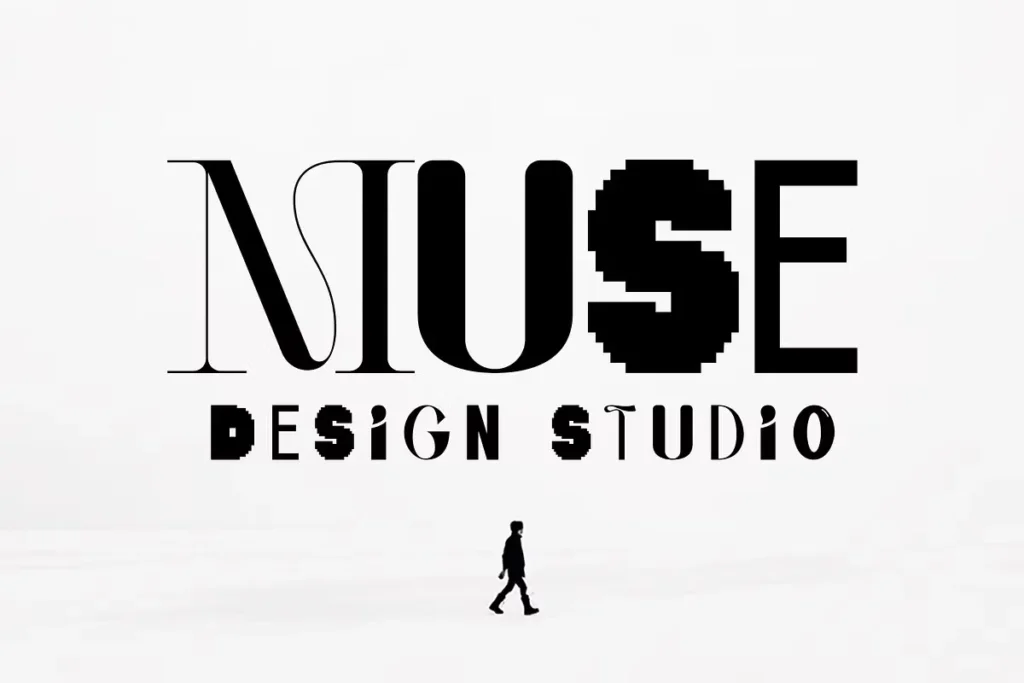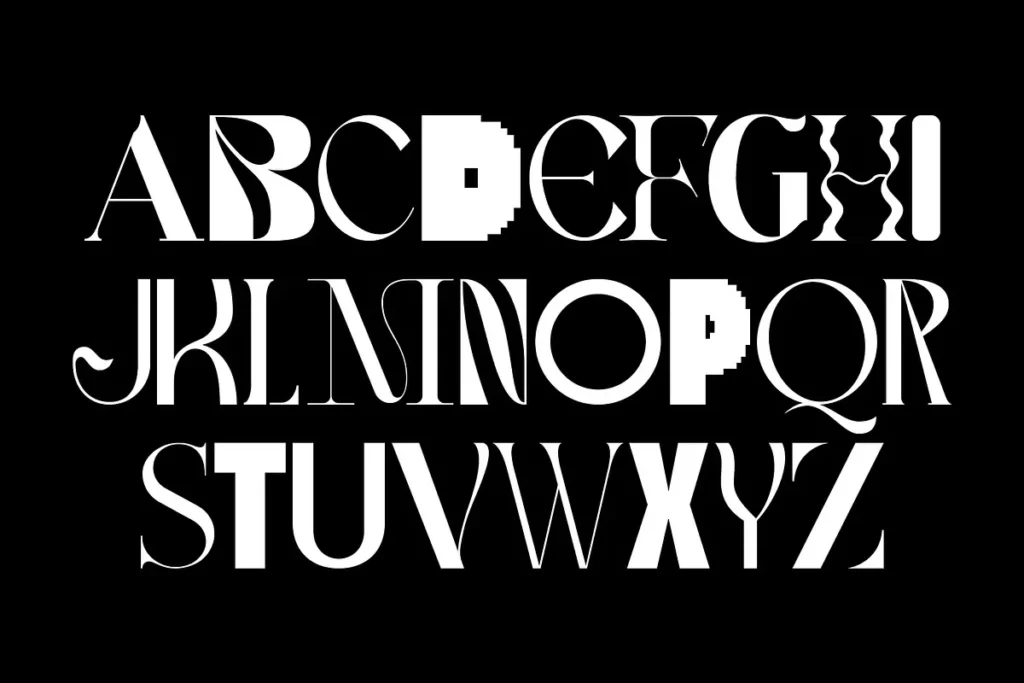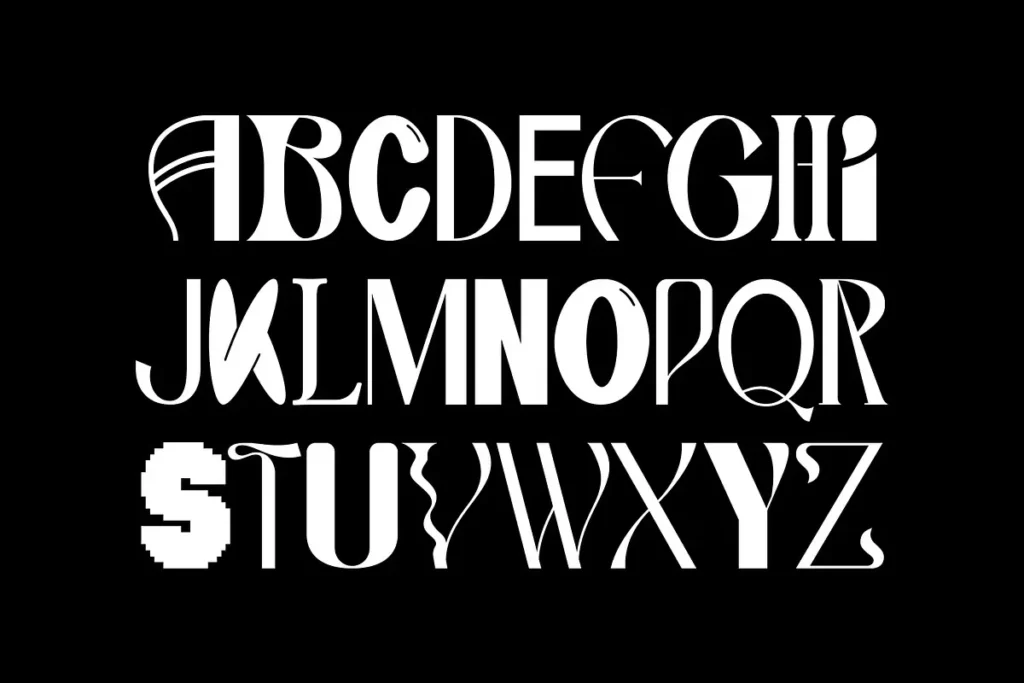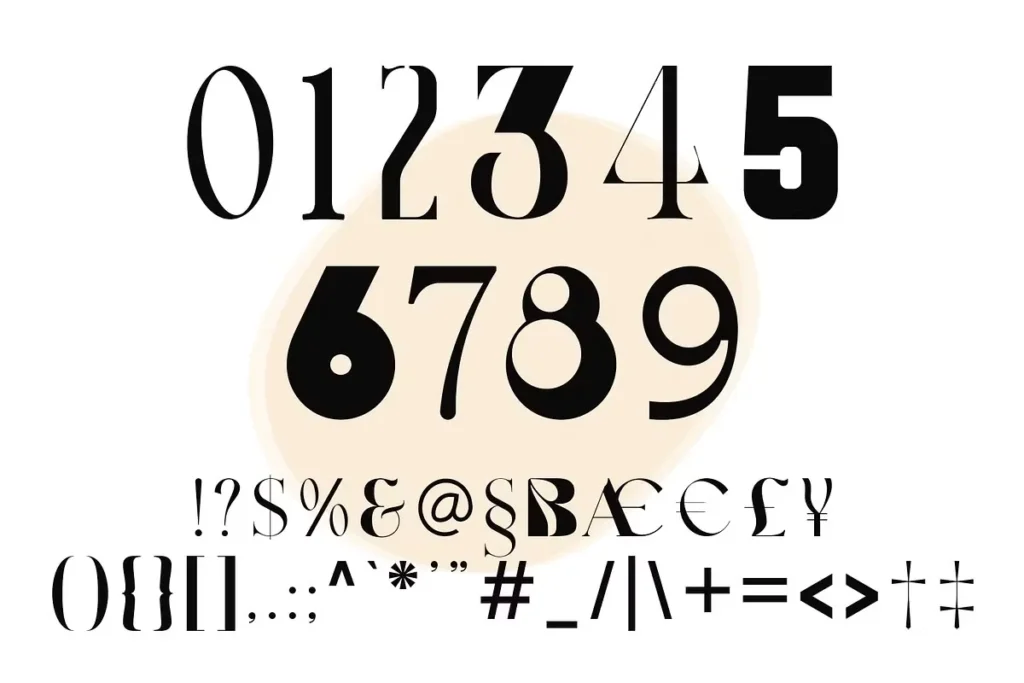
If you’re looking for a typeface that instantly grabs attention, Spikle is the perfect choice. This free mixed display typeface brings a bold and playful character to your creative projects. What makes Spikle unique is its intriguing mix of uppercase letters, each inspired by different typestyles. This mix-and-match concept creates an unpredictable yet harmonious look that works beautifully for standout designs.
Spikle isn’t your ordinary display font — it carries a funky, retro vibe with hints of groovy, vintage aesthetics. The handcrafted letterforms feel organic and artistic, making it a great option for projects that need a touch of creativity and bold expression. Whether you’re working on logos, brand identities, catchy quotes, poster headlines, or product packaging, Spikle adds a lively and energetic feel to your typography.
The playful mix of letter styles also lends itself well to psychedelic or graffiti-inspired designs, giving your work a street-art edge. Its bold, chunky appearance ensures maximum visibility, perfect for display purposes where making a statement matters.
Ideal for designers who love experimenting with typography, Spikle opens up endless creative possibilities. Use it solo or pair it with simpler fonts to create contrast and highlight key elements in your design. This typeface encourages creativity and allows your work to break away from the typical, predictable type styles.
Spikle Free Mixed Display Typeface